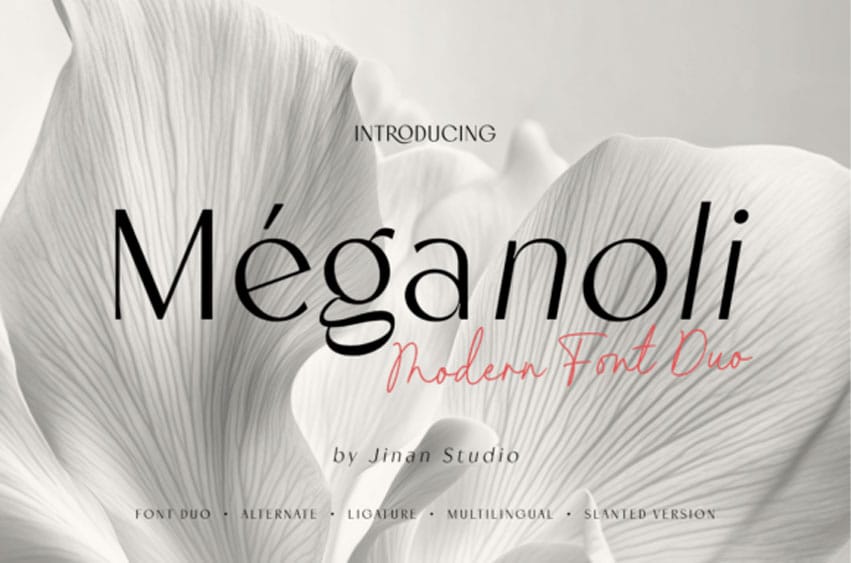
Meganoli Duo Font is a refined and contemporary font duo that effortlessly blends sophistication with style. Featuring a clean and elegant sans-serif paired with a flowing, modern script, Méganoli is designed to elevate your creative projects with a touch of timeless luxury.
Perfectly suited for branding, editorial design, fashion, packaging, and wedding stationery, this font duo offers seamless harmony between structure and grace. The sans-serif brings clarity and confidence, while the script adds a personal and artistic touch.
Whether you’re crafting a luxurious logo, a chic invitation, or a high-end brand identity, Méganoli ensures your message is always delivered with elegance and flair.